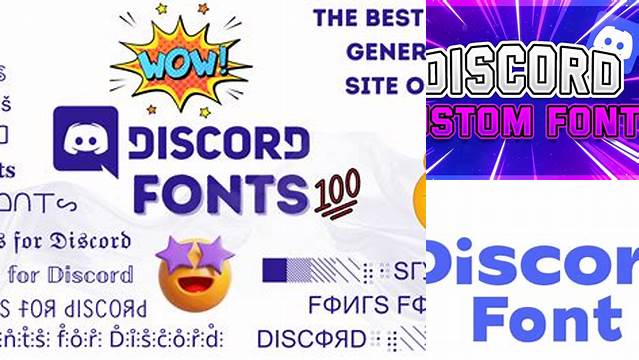
Custom Fonts On Discord: A Quick Guide
So, you want to jazz up your Discord with some cool, custom fonts, huh? Awesome! While Discord doesn't natively support custom fonts in the way you might hope, there are definitely some workarounds and methods you can use to express yourself. Let's dive into how you can make your Discord stand out with unique typography.
1. Understanding Discord's Font Limitations
First things first, guys, let's get real about what Discord can and can't do. Discord primarily uses a standard set of fonts for its interface. This is to ensure consistency across different devices and operating systems. What this means is that you can't just go into your settings and select a funky new font for your entire Discord experience. However, don't lose hope! There are still ways to inject some personality into your messages.
The core issue is that Discord relies on system-level fonts to maintain its visual structure. These fonts are chosen for readability and compatibility, which is crucial for a platform used by millions worldwide. Direct modification of the interface fonts would require altering Discord's code, something that’s against their terms of service and potentially unstable. So, while the idea of a complete font overhaul might be tempting, it's not really feasible or recommended. Instead, we need to think creatively about how to use alternative methods to achieve a similar effect.
This limitation is also in place to ensure accessibility for all users. Standardized fonts help people with visual impairments or those who use screen readers to navigate the platform more easily. Introducing too much variation could make the app difficult to use for a significant portion of the user base. So, while customizability is great, it needs to be balanced with the need for inclusivity and usability. This is why Discord has opted for a more controlled font environment.
2. Using Unicode Text Converters for Discord
One of the easiest and most popular methods to use custom fonts on Discord is by using Unicode text converters. These tools essentially take your regular text and convert it into stylized Unicode characters that look like different fonts. Think of it as creating an illusion of a new font rather than actually changing the font itself. There are tons of websites and apps that offer this functionality. Just search for "Unicode font converter" and you'll find plenty of options.
How do these converters work? Unicode is a universal character encoding standard that assigns a unique number to every character, symbol, and glyph across different languages and scripts. Some Unicode characters resemble different font styles, like bold, italic, cursive, or even bubble letters. These converters simply replace your standard characters with their corresponding Unicode equivalents, creating the desired visual effect. The advantage of this method is that it works on any platform where Unicode is supported, which includes Discord on desktop, web, and mobile.
To use a Unicode text converter, simply type your message into the converter, and it will generate the stylized text. Then, copy and paste the stylized text into your Discord chat. Voila! Your message will now appear in a unique “font.” Keep in mind that while these characters look different, they are still technically Unicode characters, so they may not perfectly replicate the look of a true font. Also, some of the more elaborate styles might not be readable on all devices or by all users, so it's best to stick to styles that are clear and legible.
3. Exploring Discord Text Formatting with Markdown
Discord uses Markdown, a lightweight markup language, for text formatting. While it doesn't let you change the actual font, you can use it to make your text bold, italic, underlined, or even create code blocks. These formatting options can add emphasis and visual interest to your messages, effectively mimicking some of the benefits of using different fonts. It’s a simple way to enhance your text without relying on external tools.
To use Markdown, you just need to add specific symbols around your text. For example, to make text bold, you would surround it with double asterisks: **bold text**. To make text italic, you would use single asterisks: *italic text*. For underlined text, you can use double underscores: __underlined text__. You can also combine these formats for even more emphasis, like ***bold and italic text***. These simple tricks can make your messages more engaging and easier to read.
Markdown also allows you to create code blocks, which can be useful for sharing snippets of code or text in a monospaced font. To create a single-line code block, surround your text with backticks: `code`. For multi-line code blocks, use three backticks at the beginning and end of your text: code block. Code blocks not only change the font to a monospaced style but also preserve the formatting of your text, making it ideal for sharing code or other structured information. By mastering these Markdown tricks, you can significantly improve the readability and visual appeal of your Discord messages.
4. Utilizing Discord Bots for Font Commands
Some Discord bots offer commands that can help you format your text in interesting ways. These bots often use Unicode characters or other tricks to create the illusion of different fonts. You'll need to invite a bot to your server that has these capabilities and then learn the specific commands. A quick search on Discord bot directories should help you find suitable options. Just be sure to choose reputable bots to avoid any security risks. I think this method is super innovative, guys!
These bots usually work by providing a command that takes your text as an argument and then outputs the formatted text using Unicode characters or other styling techniques. For example, a bot might have a command like !fancytext Hello World that converts “Hello World” into a stylized version using different Unicode characters. The bot then posts the converted text in the channel, allowing you to easily share formatted messages with others. Some bots even offer a variety of different font styles to choose from, giving you more flexibility in how you style your text.
When choosing a bot, it's important to consider its reliability and security. Look for bots that are well-maintained and have positive reviews from other users. Avoid bots that ask for excessive permissions or seem suspicious. It's also a good idea to check the bot's documentation to understand how its commands work and what limitations it might have. By carefully selecting a bot and learning its commands, you can add a fun and creative element to your Discord server.
5. Creating Custom Emojis with Text
Okay, so this isn’t exactly a font change, but hear me out. You can create custom emojis that feature text in a specific style. This allows you to use those custom text emojis in your messages. It’s a bit more involved, as you’ll need to design the emojis and upload them to your server, but it can be a fun way to add unique text elements.
To create custom emojis with text, you'll need a graphics editor like Photoshop, GIMP, or even an online tool like Canva. Design your emoji with the desired text and style, making sure it adheres to Discord's emoji size requirements (128x128 pixels). Save the image as a PNG file with a transparent background to ensure it looks good on any background color. Then, upload the emoji to your Discord server by going to Server Settings > Emoji and clicking